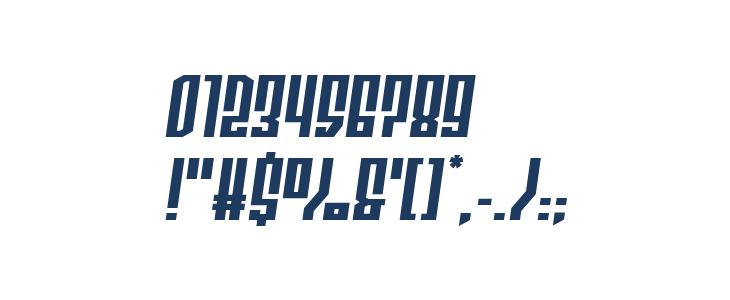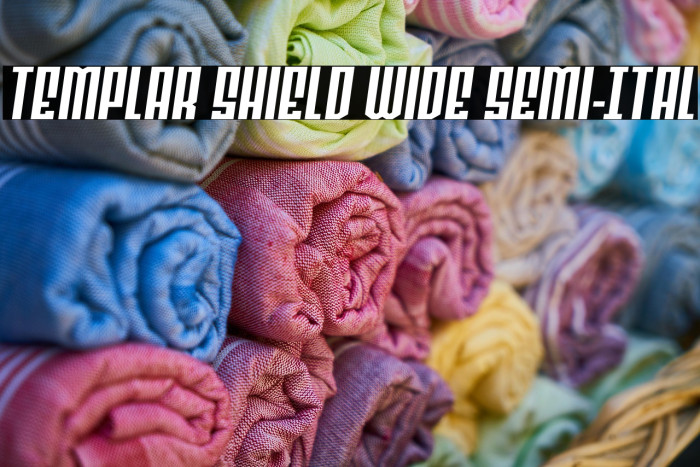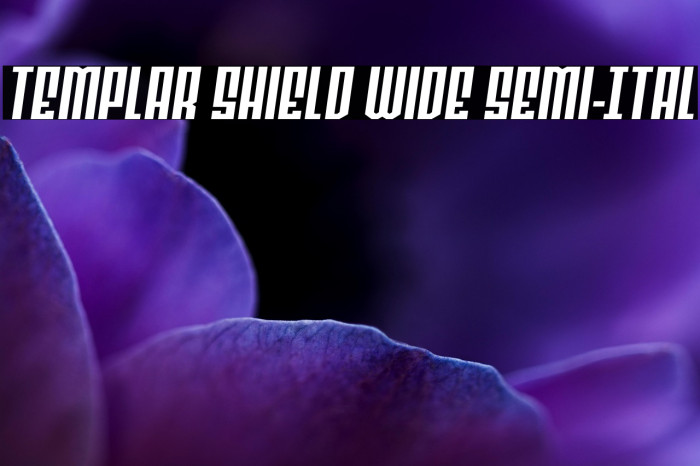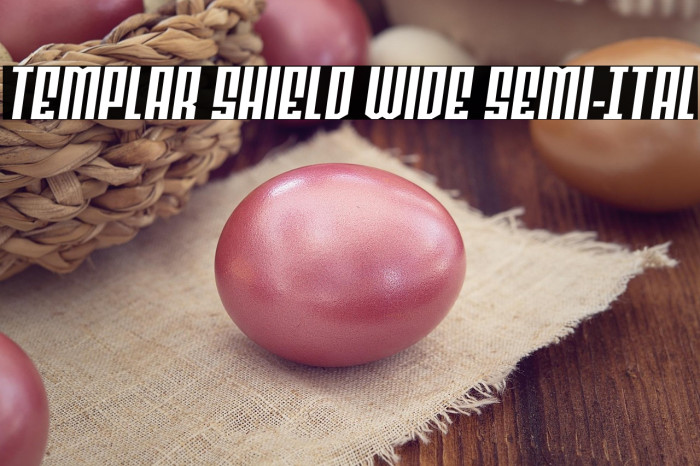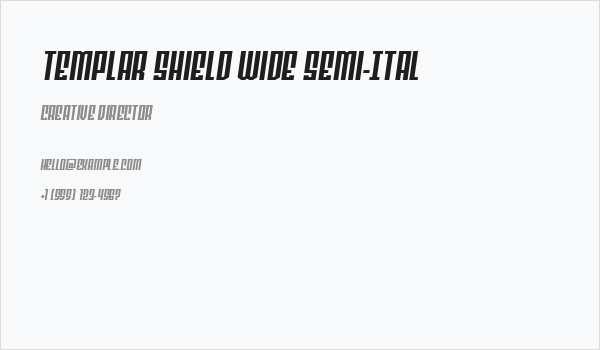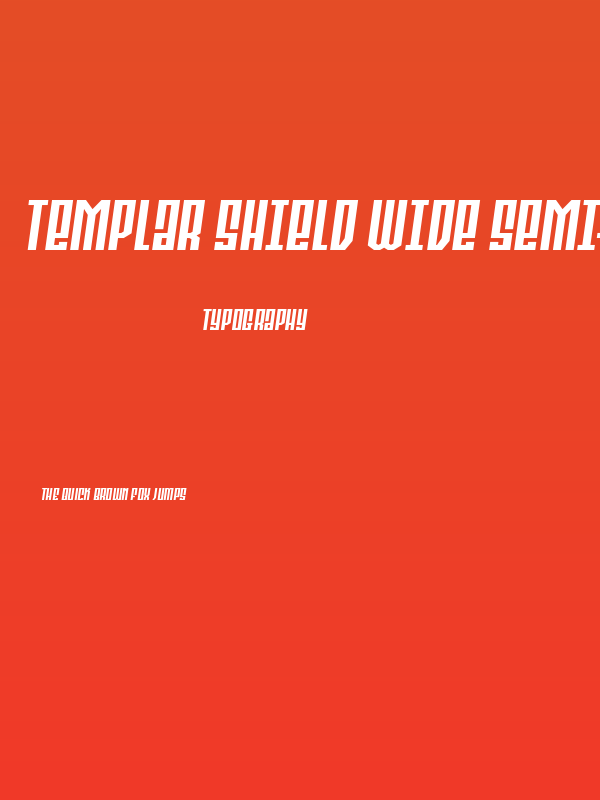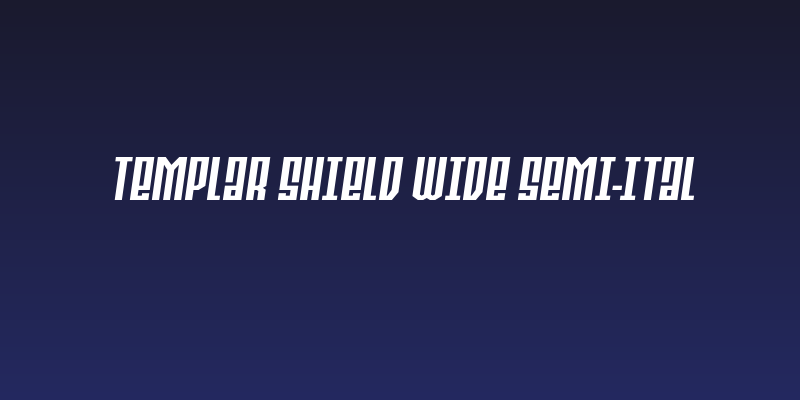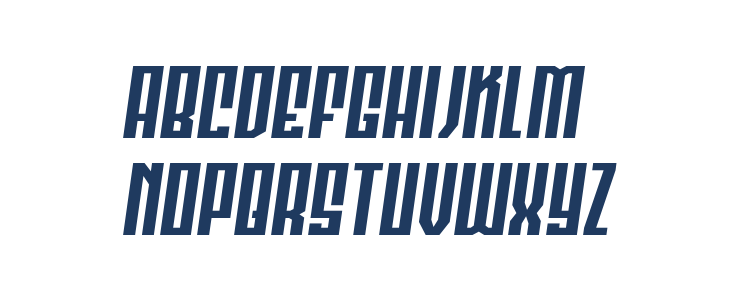
Templar Shield Wide Semi-Ital Font
Templar Shield Wide Semi-Ital Description
This font features a bold and striking design with a strong geometric influence. The characters are wide and have a semi-italic slant, giving them a dynamic and forward-moving appearance. The angular edges and sharp lines create a sense of strength and modernity, making it ideal for impactful headlines or branding. The uppercase and lowercase letters maintain a consistent style, while the numerals and special characters are designed to match the bold aesthetic. The overall look is both contemporary and assertive, suitable for projects that require a commanding visual presence.